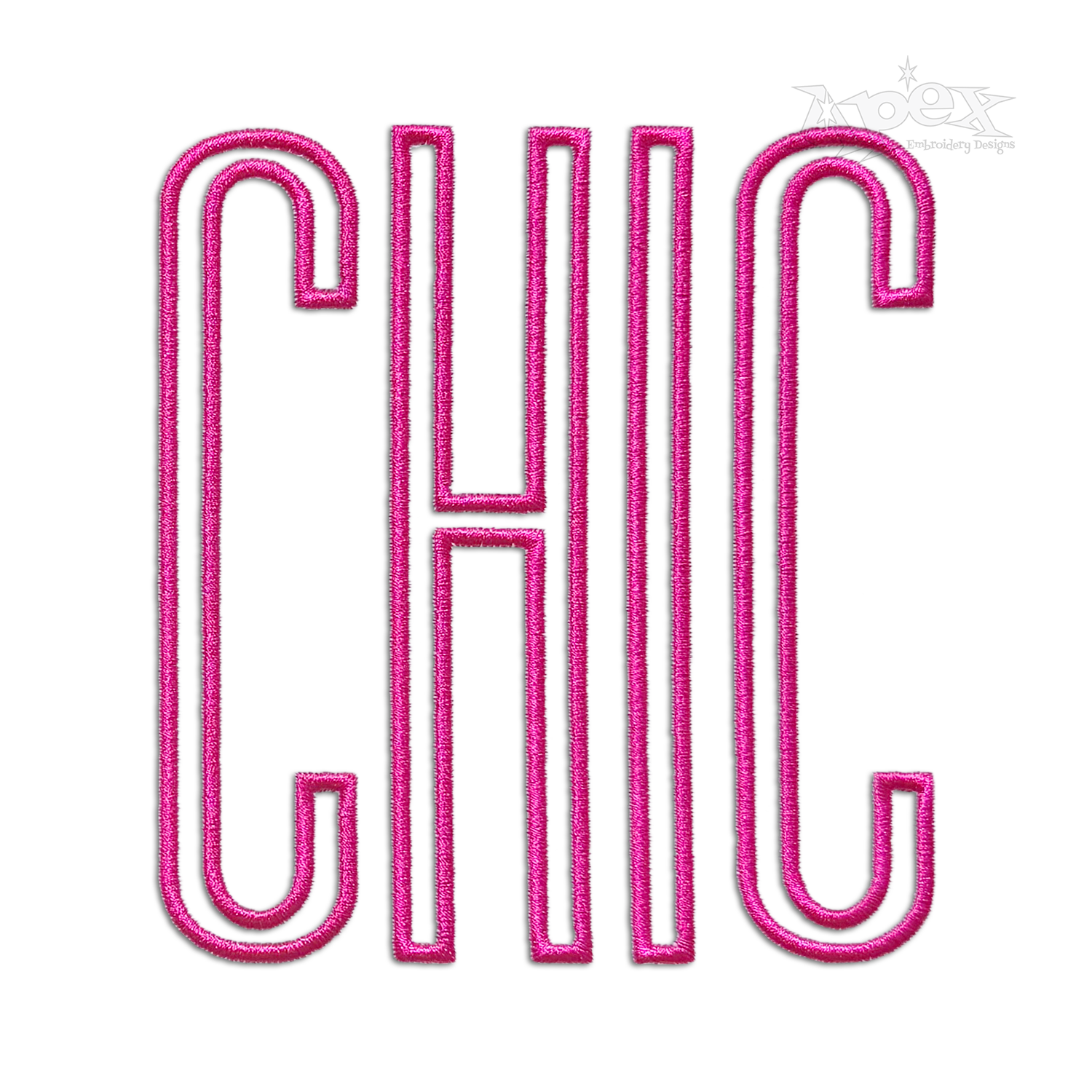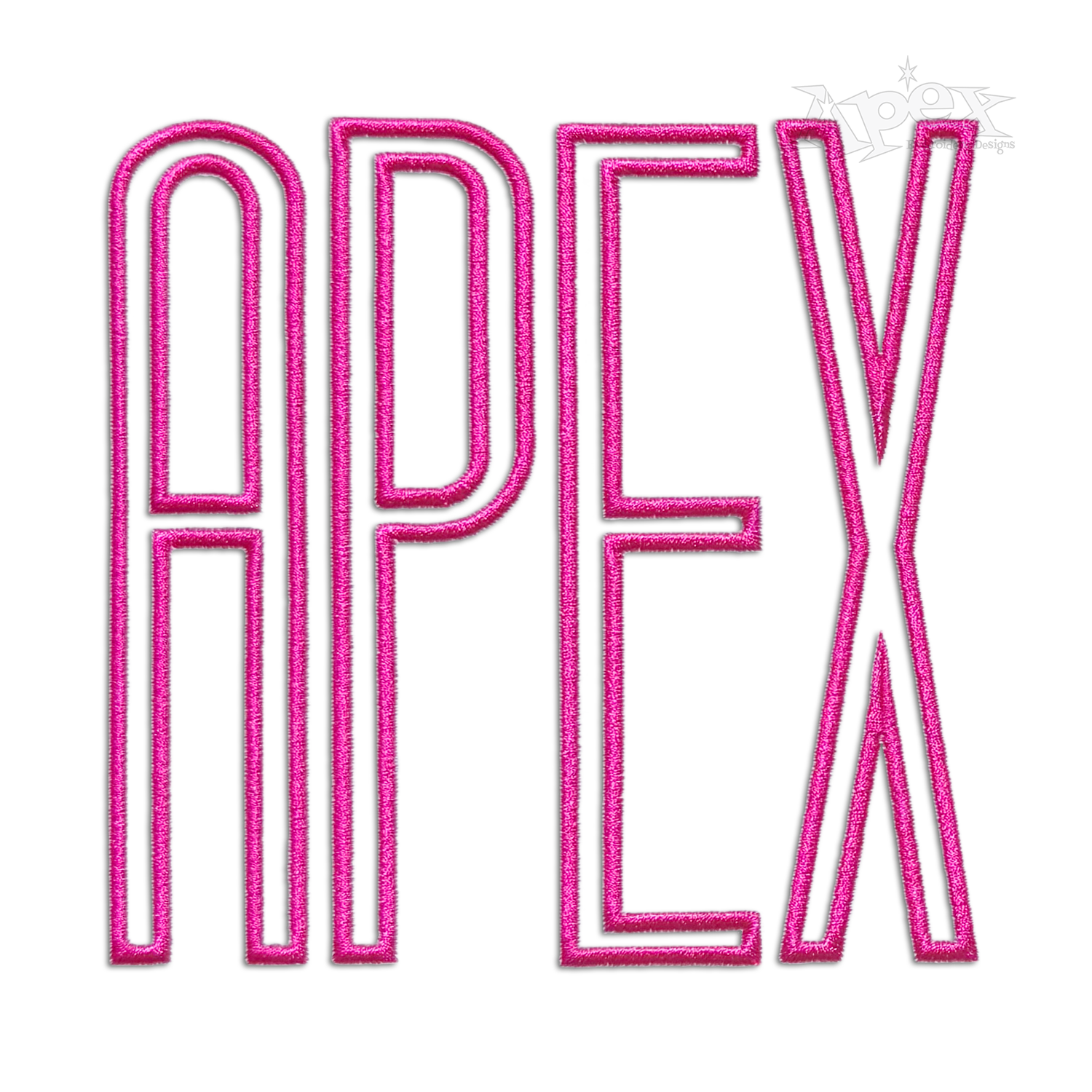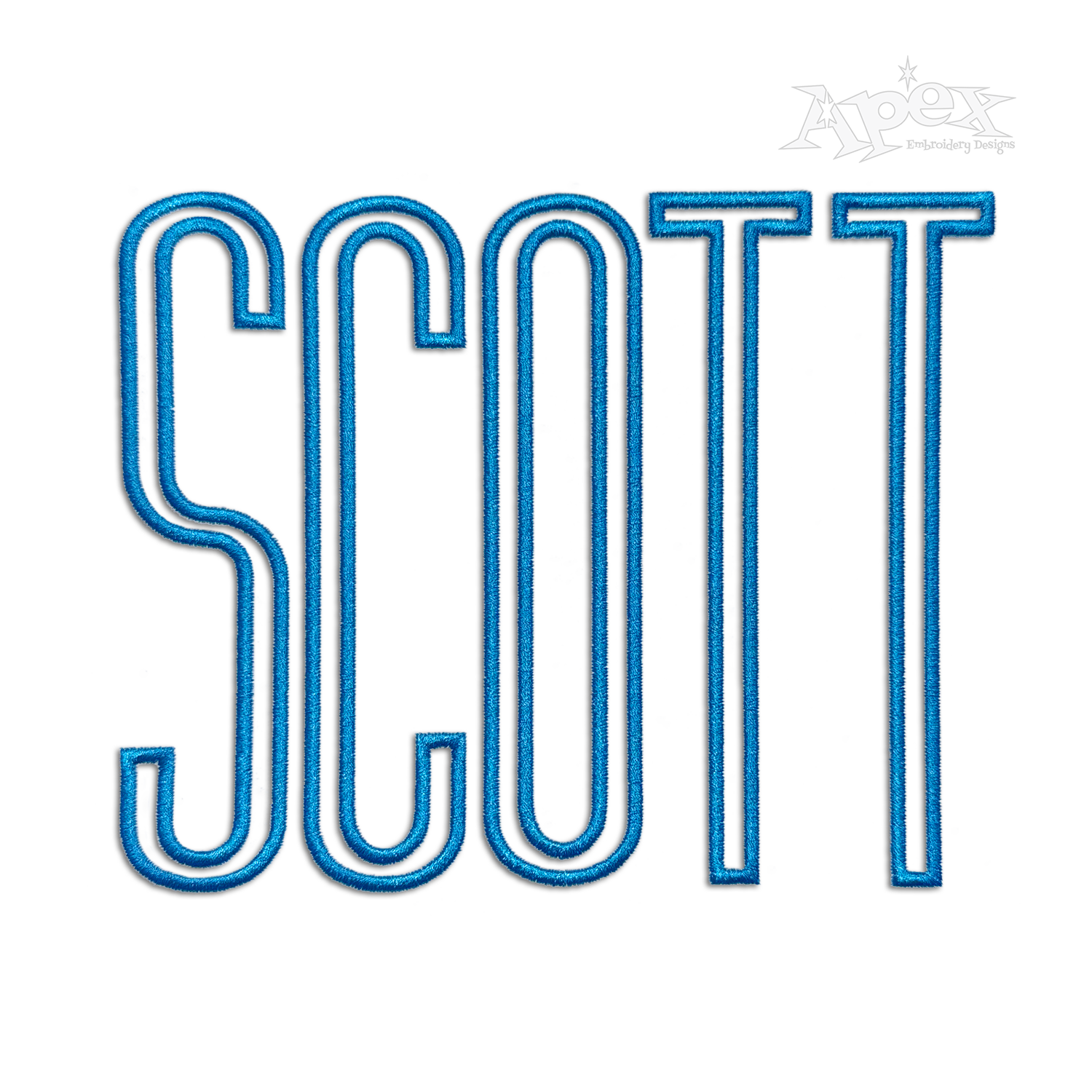
Tesla Monogram Embroidery Font
Born from an appreciation for architectural symmetry and crisp, contemporary design, the Tesla Monogram Embroidery Font brings a refined graphic presence to the classic three-letter initial crest. Designed to celebrate the beauty of negative space and rhythmic parallel lines, this typeface trades old-world filigree for a sleek, streamlined aesthetic that feels effortlessly tailored and high-end. Whether embroidered onto structured canvas or soft linen, this lined monogram creates a bold visual statement through disciplined geometry, crisp stitch boundaries, and contemporary distinction.
Digitized with immaculate precision, this three-letter monogram set includes left, center, and right letterforms to build beautifully proportioned monograms across four versatile scales:
- 2.0 Inch – Designed for understated elegance on cuffs, small accessory bags, and cocktail napkins.
- 3.0 Inch – An ideal mid-scale size for guest hand towels, tote bags, and garment placements.
- 4.0 Inch – A commanding statement scale tailored for luxury bath sheets, pillow shams, and travel luggage.
- 5.0 Inch – A grand focal monogram for heirloom duvet covers, framed fabric art, and dramatic throw blankets.
Project Ideas for Tesla Monogram Font
- Luxury Table Linens: Stitch crisp center monograms on tailored linen napkins and hemstitched placemats for sophisticated dining spaces.
- Executive Canvas Luggage: Accent heavy-duty weekender bags, garment carriers, and dopp kits with durable, modern personalized gifting accents.
- Bespoke Resort & Loungewear: Elevate waffle-weave bathrobes, crisp poplin pajamas, and terry beach towels with a fresh, contemporary monogram.
- Modern Heirloom Bedding: Frame minimalist master suites with striking 4-inch or 5-inch initials across duvet covers and decorative lumbar pillows.
- Curated Bridal & Groom Gifts: Add sharp, polished initials to groom dopp kits, groomsmen garment bags, or tailored bridal honeymoon totes.
- Center Chest & Robe Placements: Position the 3-inch or 4-inch trio centrally on the left chest of tailored shirts or plush robes to maintain balanced visual weight.
- Napkin Corner Diagonals: Angle the monogram 1.5 to 2 inches inward along a 45-degree corner line for an impeccably folded dinner setting.
- Pocket & Placket Accents: Utilize the crisp 2-inch scale centered over pocket tops or shirt cuffs for subtle, bespoke executive wear.
- Centered Cushion Flanges: Ground decorative bedroom accents by floating the 5-inch composition squarely within a framed pillow flange or accent sham.
Tesla Monogram Font Craft & Letterform Details
The visual drama of the Tesla letterform lies in its harmonious multi-line construction, where open linear channels sit poised between dense, satin-stitched columns. Digitizing this style demands extraordinary needle discipline: every stitch trajectory must align with absolute mathematical consistency to ensure that the parallel voids remain razor-straight and open on textured fabrics.
Rather than simple outlines, the satin stitch paths are calibrated with intelligent underlay structures that anchor the textile weave before the surface threads form. This deliberate density stabilization prevents inward pull and fabric distortion, ensuring the linear channels never pinch shut during production. The result is a smooth, luminous satin sheen that catches ambient light across your threads, delivering architectural poise and modern luxury to every piece you stitch.